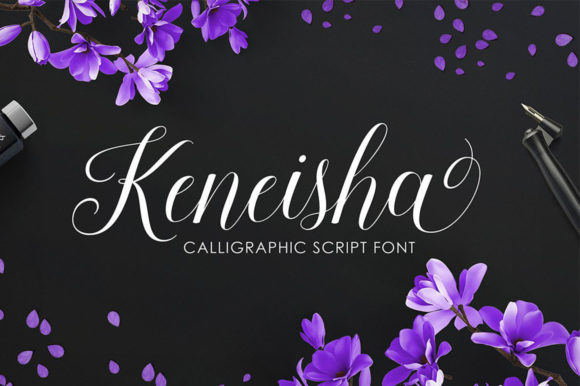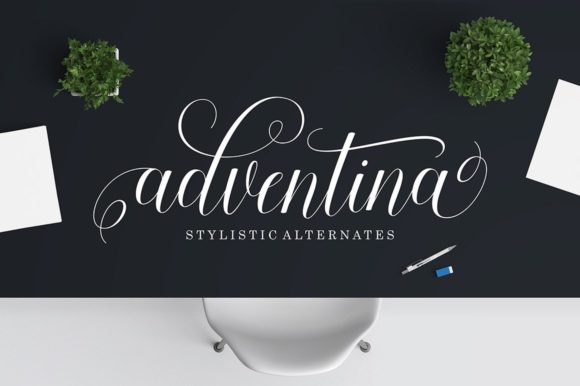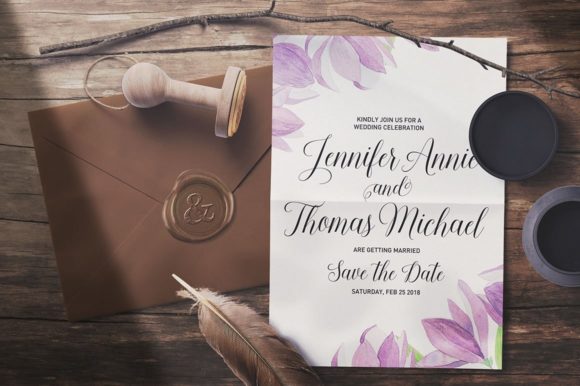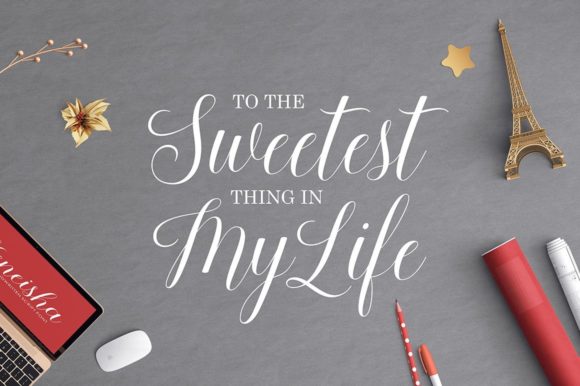
About Keneisha Script Font
Keneisha Script is a free-flowing and dynamic script font that has been carefully designed to exude high-quality vibes, making it a perfect choice for a wide range of design projects. From packaging products to invitation cards, flyers, mockups, and event posters, Keneisha Script brings a sense of elegance and charm to your creations.
The font’s fluid and natural strokes give it a sense of movement and energy, allowing it to captivate the viewer’s attention and convey a sense of style and sophistication. Whether you’re working on branding materials, promotional materials, or any other design that requires a touch of creativity, Keneisha Script is versatile enough to meet your needs.
Keneisha Script’s PUA encoding offers you easy access to a variety of glyphs and swashes, giving you the freedom to customize your text and add decorative elements that enhance the overall aesthetic of your designs. This feature empowers you to create unique and personalized typography that stands out.
Its combination of smooth curves and elegant letterforms makes Keneisha Script a great choice for projects where a blend of professionalism and creativity is essential. The font’s versatility ensures that it can adapt to both formal and informal contexts, providing a harmonious balance between style and readability.
By incorporating Keneisha Script into your projects, you can infuse a sense of liveliness and sophistication that resonates with your target audience. Its free-flowing nature and high-quality design make it a valuable asset in creating visually appealing and impactful designs that leave a lasting impression.
Whether you’re designing invitations, promotional materials, or any other creative project, Keneisha Script’s dynamic and elegant aesthetic can elevate your work and contribute to the overall success of your design endeavors.